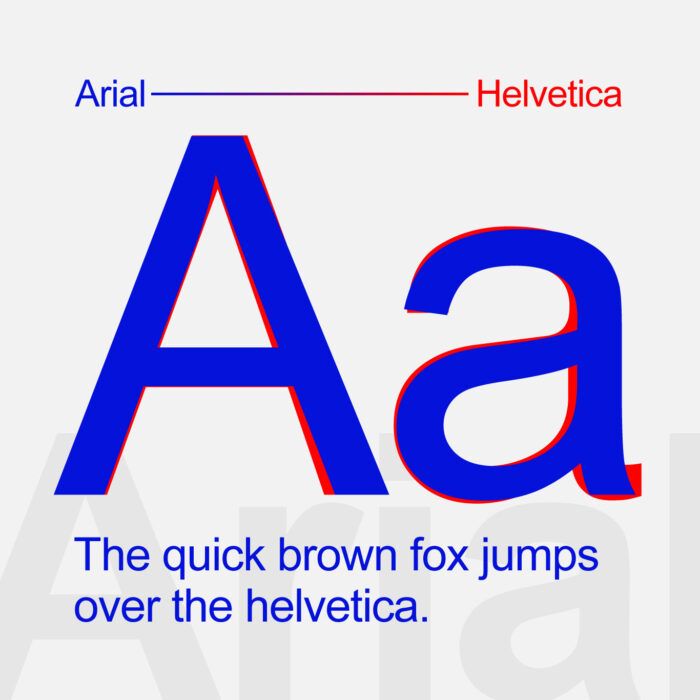
Arial needs very little introduction. Arial is everywhere. It has been used for years in Word documents, spreadsheets, presentations, forms, websites and printed material.
Robin Nicholas and Patricia Saunders created Arial at Monotype in 1982. Microsoft added licensed versions to Windows 3.1 in 1992, which put the font in front of a huge number of computer users.
Why Arial Became So Common
There was no unusual visual idea behind its popularity. Arial was useful, available and easy to work with.
Its roots are tied to type made for early digital typesetting and laser-printing systems, where predictable spacing and clear rendering mattered. Compatibility with layouts using Helvetica was also important.
Bundling Arial with Windows changed its reach completely. That availability mattered. That made Arial an easy choice. It was already installed, familiar and ready to use. School assignments, invoices, office documents and presentation slides all ended up using it.
Arial vs Helvetica
Arial is often compared with Helvetica because the two can fill much the same role. Their spacing is also close enough that switching between them usually causes fewer layout changes than you might expect.
The shapes are different when you look closely. Arial has more angled terminals, especially in letters such as “t,” “r,” “f” and “C”. Helvetica usually feels stricter, with more horizontal and vertical cuts.
This similarity created one of the best-known debates in modern typography.
Design Notes
Arial has a tall x-height, wide capitals and simple neo-grotesque proportions. It reads cleanly at small sizes and stays neutral in layouts that should not feel heavily designed.
The Black style gives the family a stronger display option for headlines and posters. The Narrow styles are useful for tables, labels, forms and layouts where space is limited.
Arial still makes sense when typography is not supposed to be the main attraction. It is familiar, easy to read and available almost everywhere. For branding, there are usually more distinctive choices.